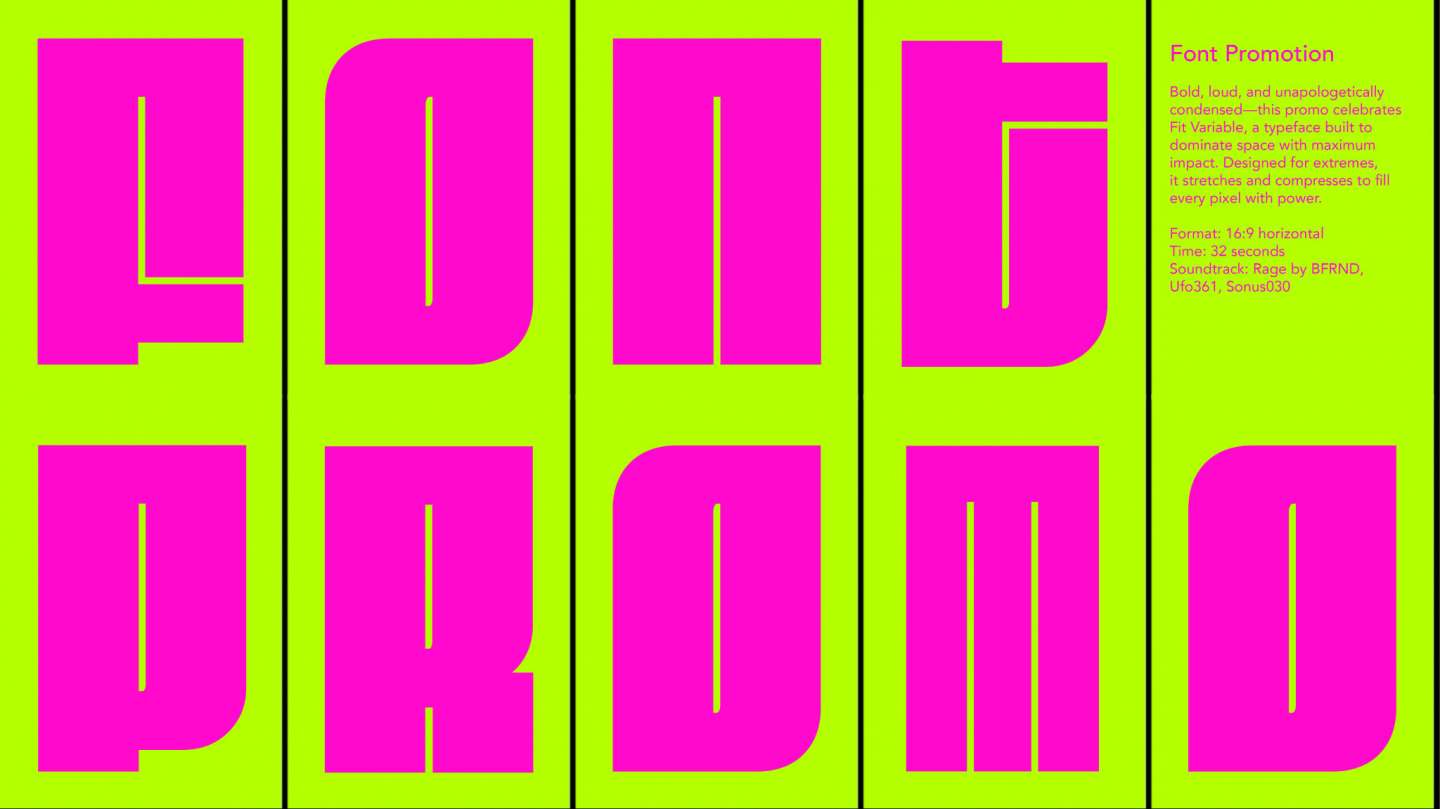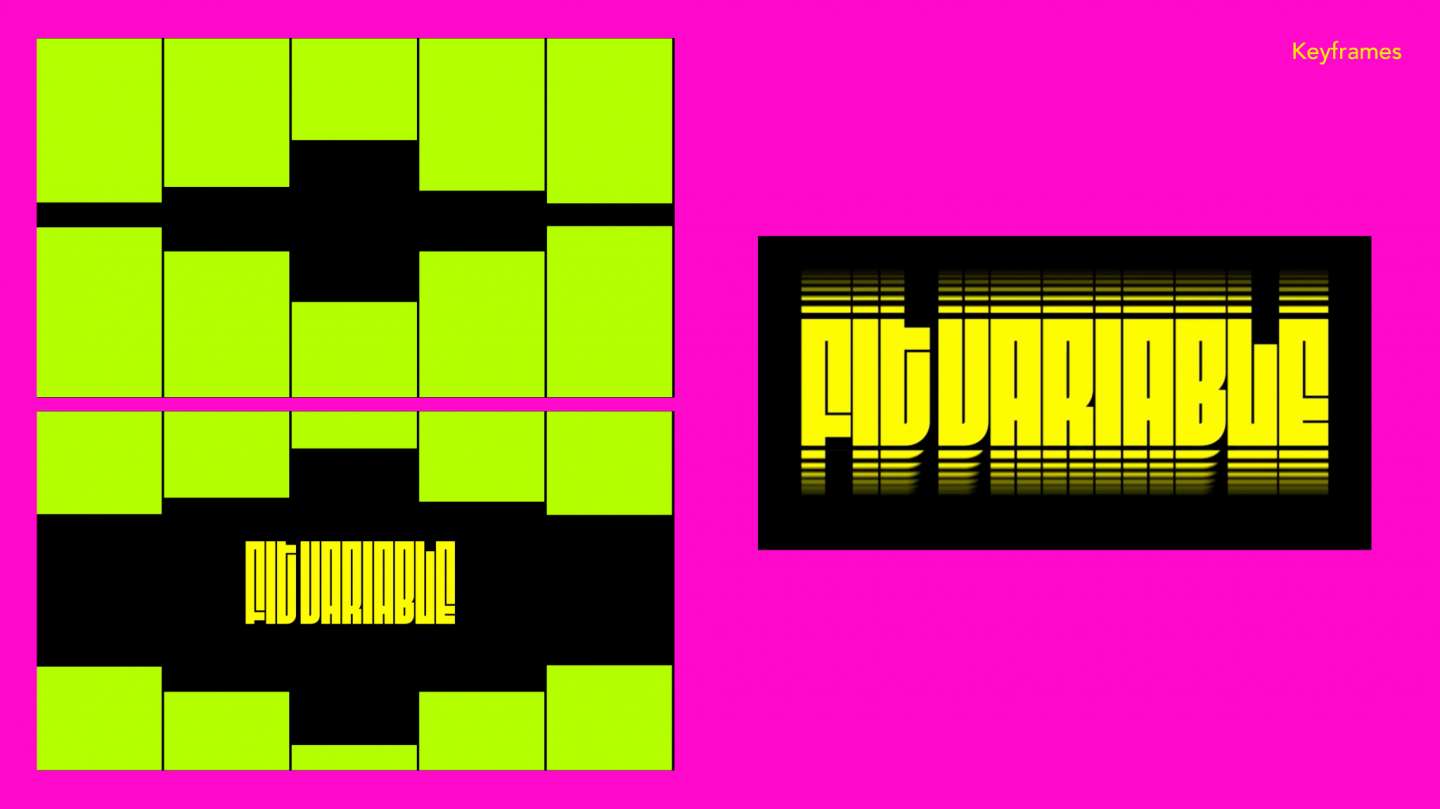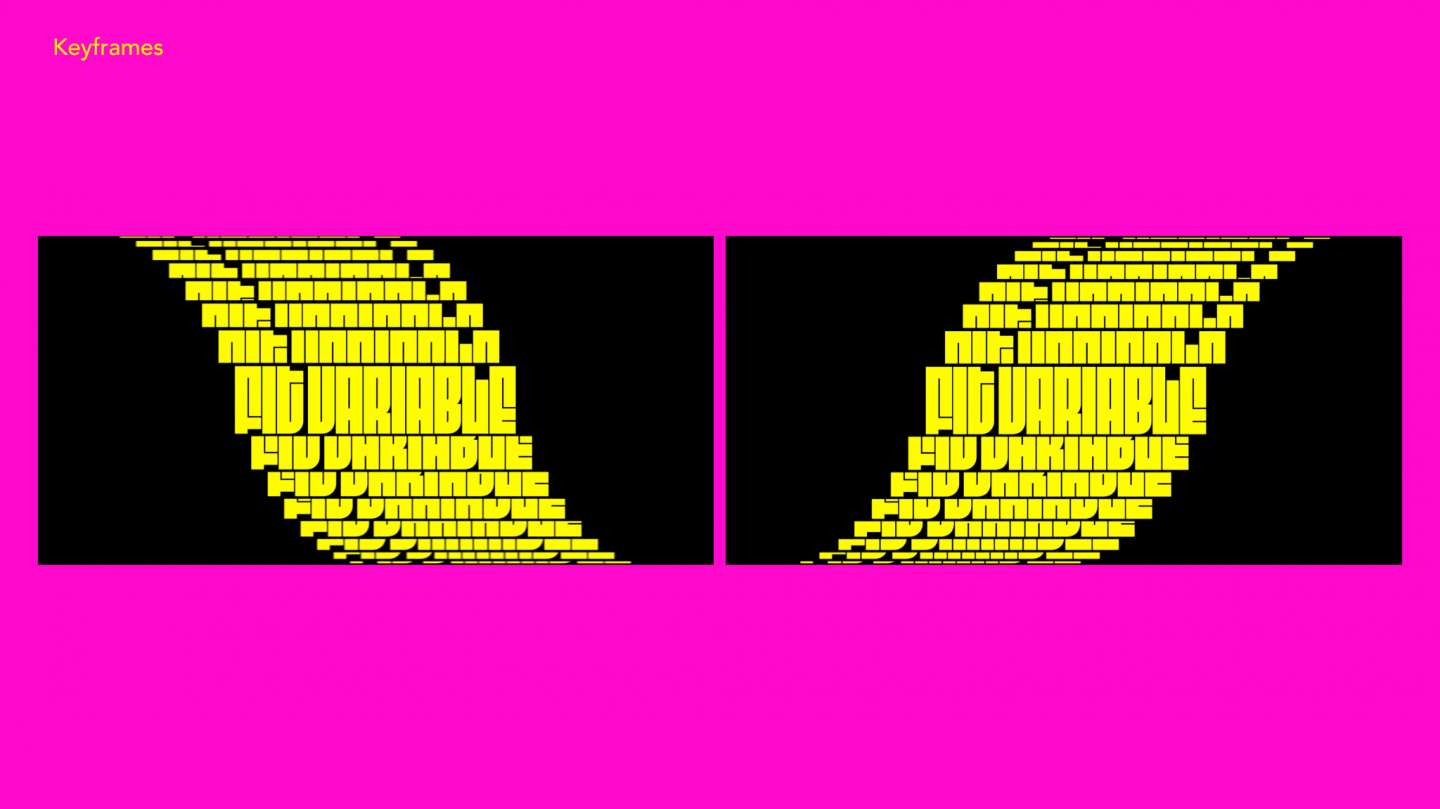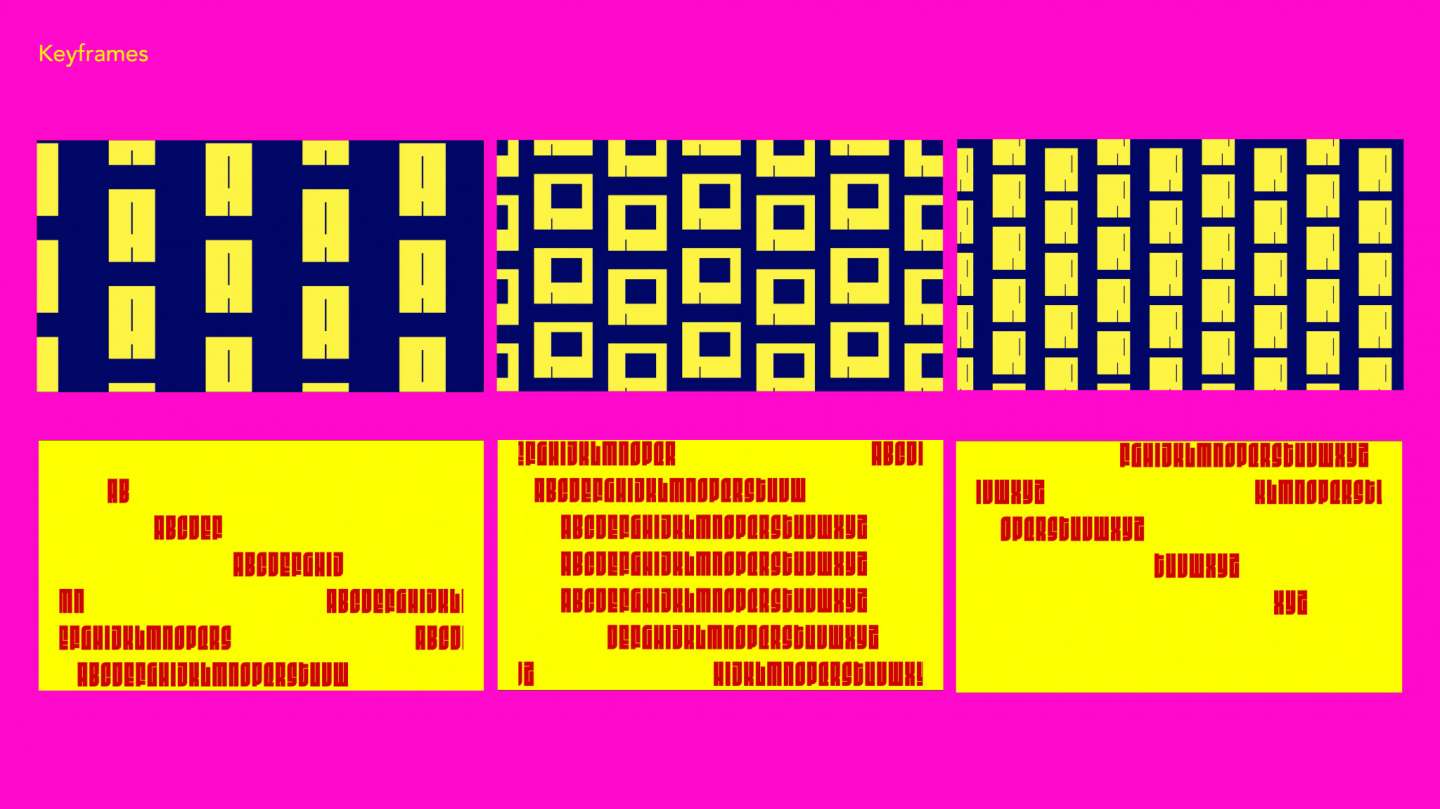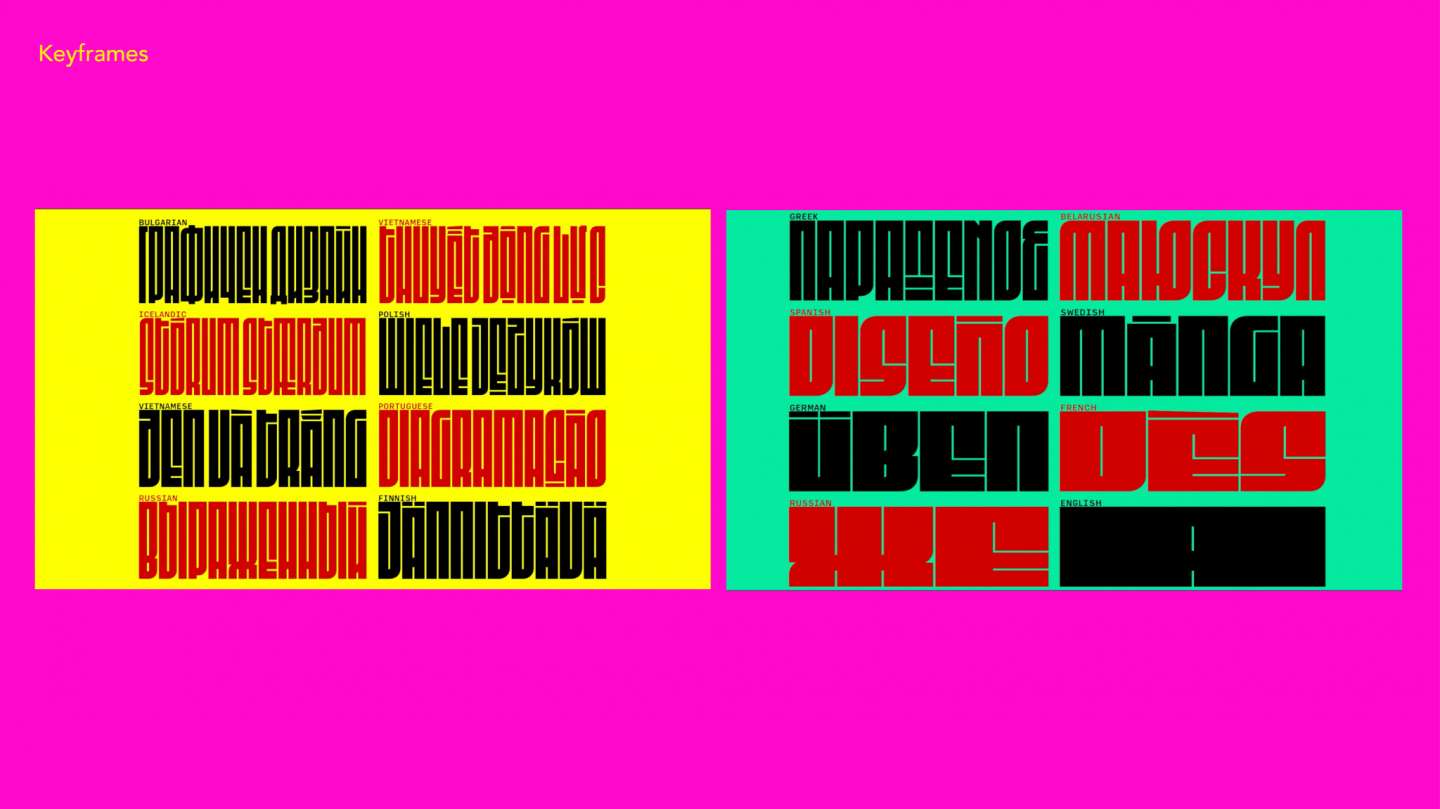
Bold, loud, and unapologetically condensed--this promo celebrates Fit Variable, a typeface built to dominate space with maximum impact. Designed for extremes, it stretches and compresses to fill every pixel with power.